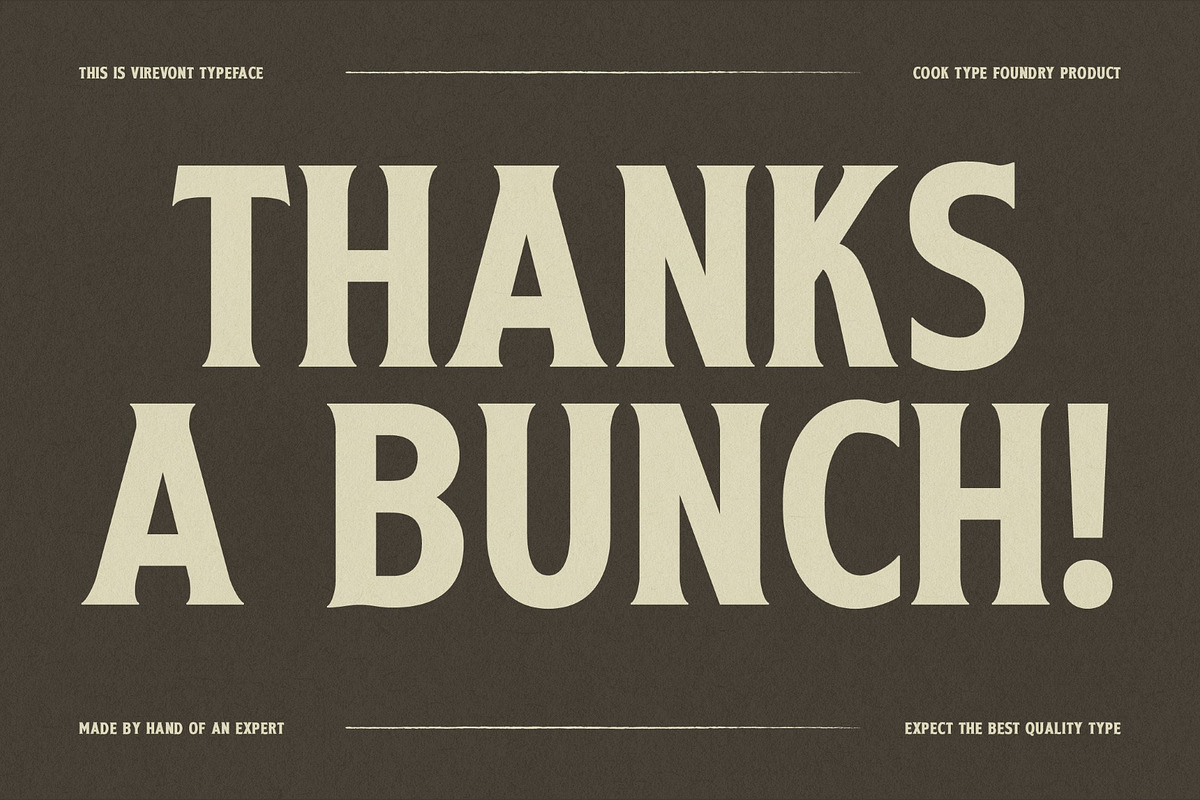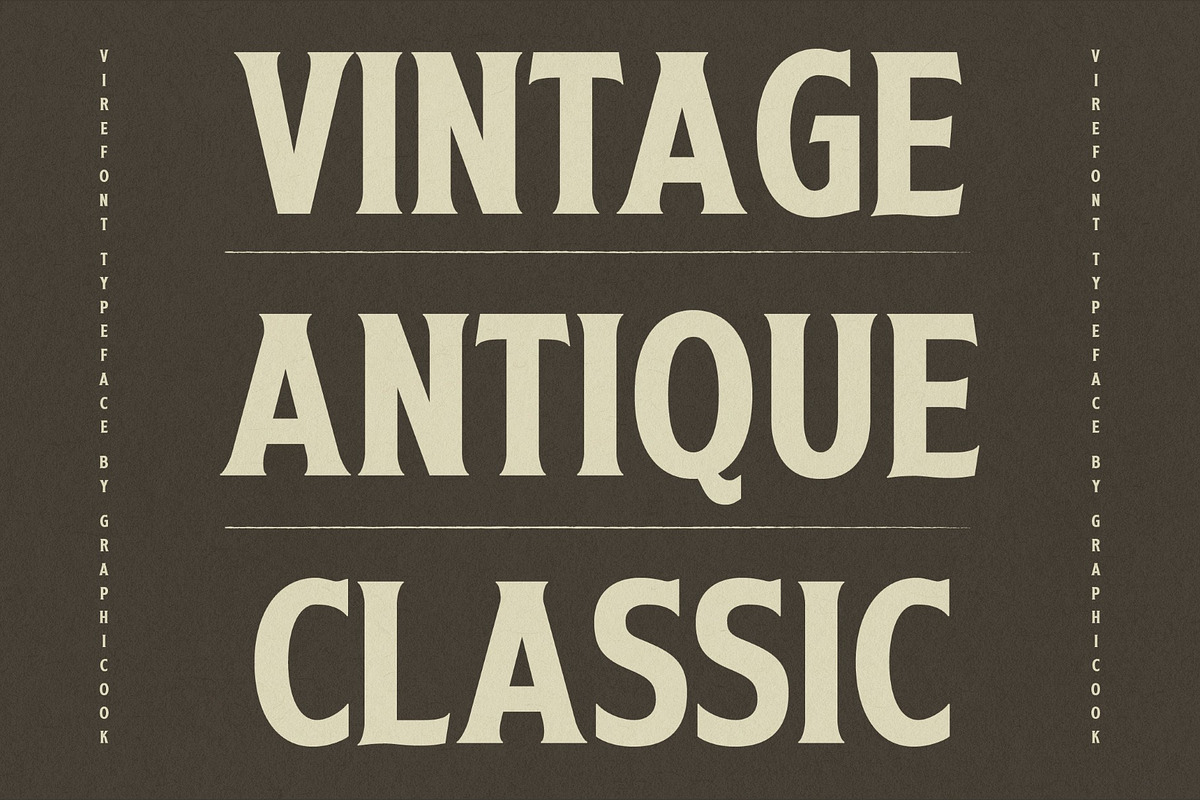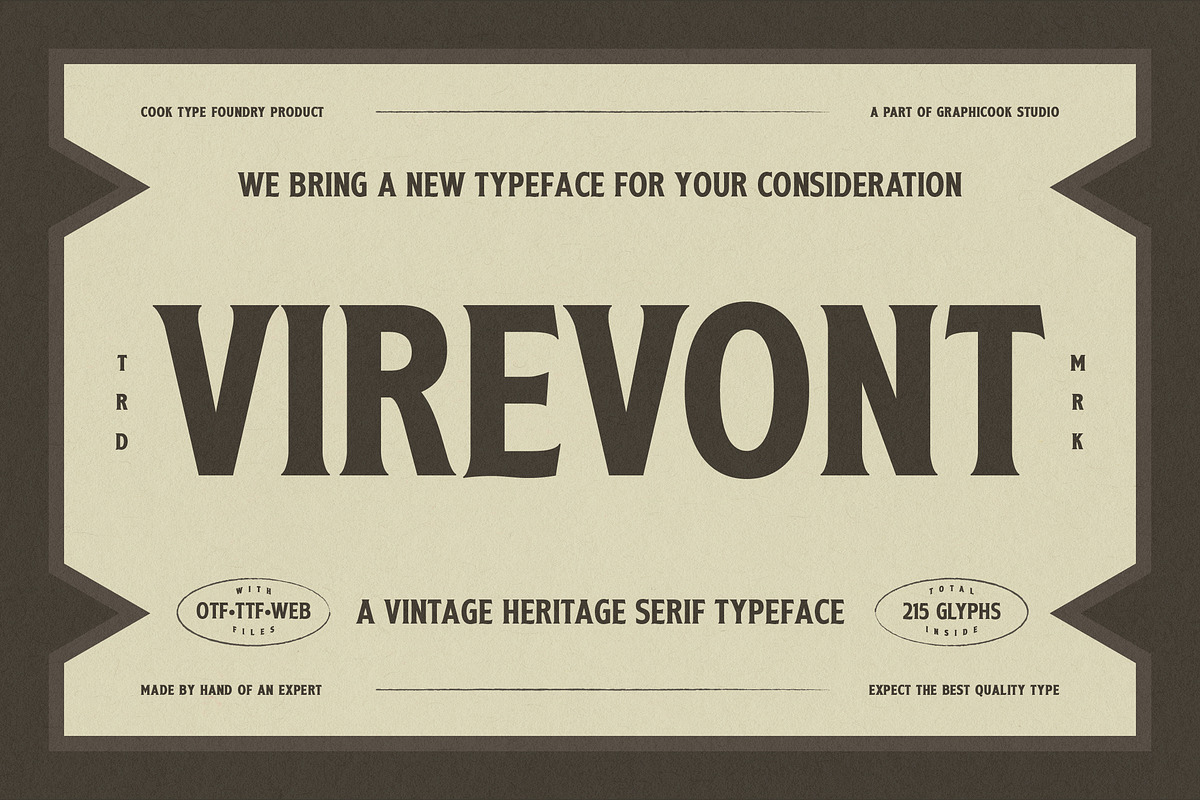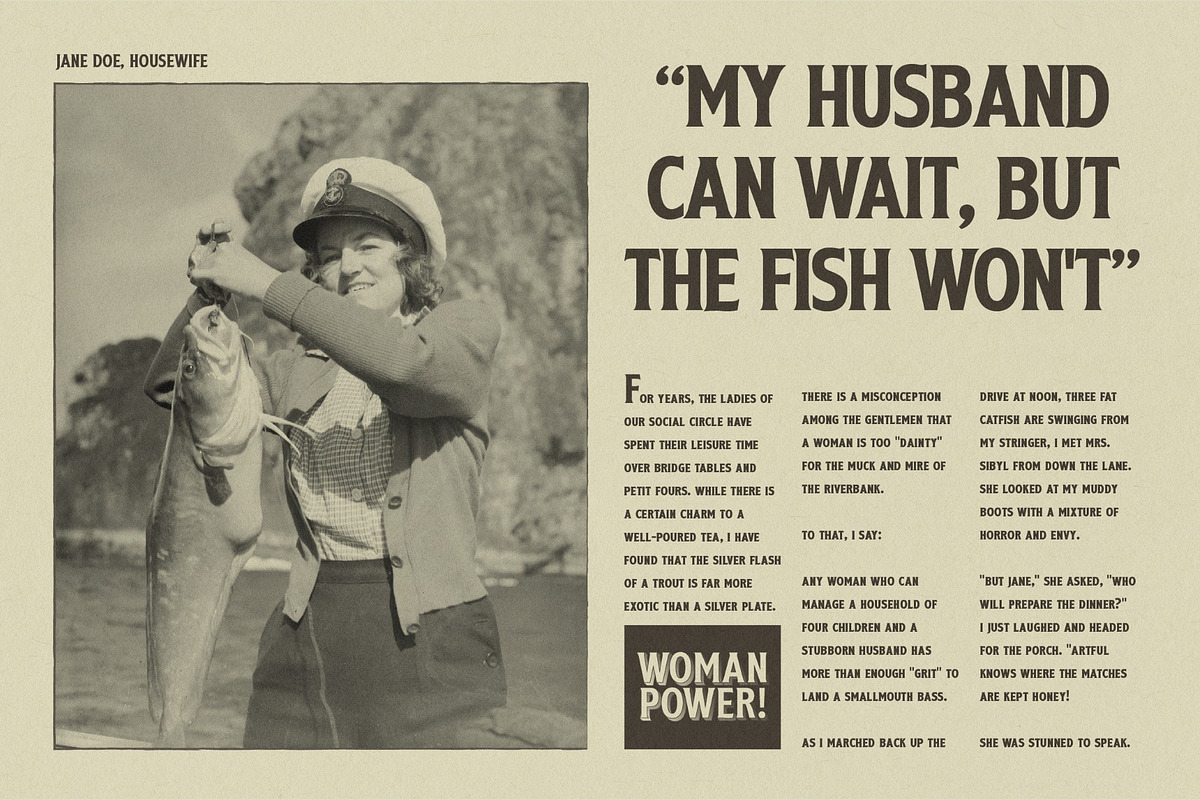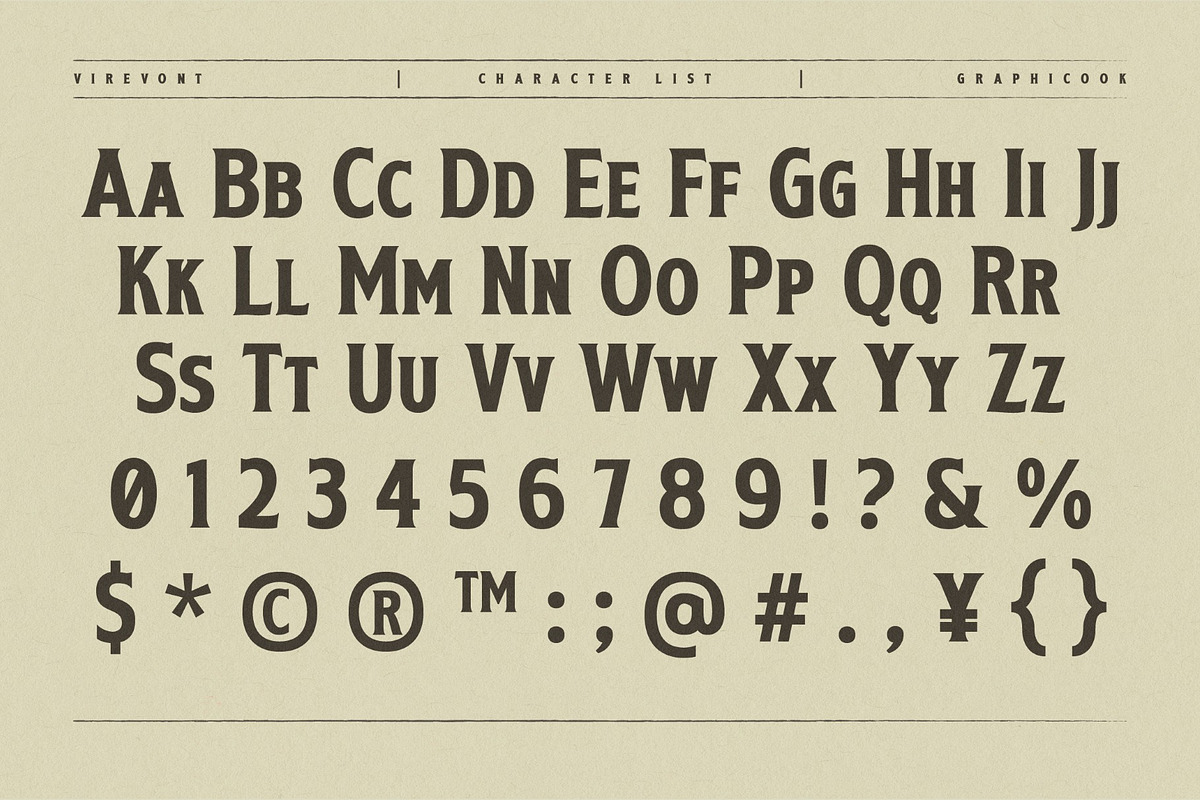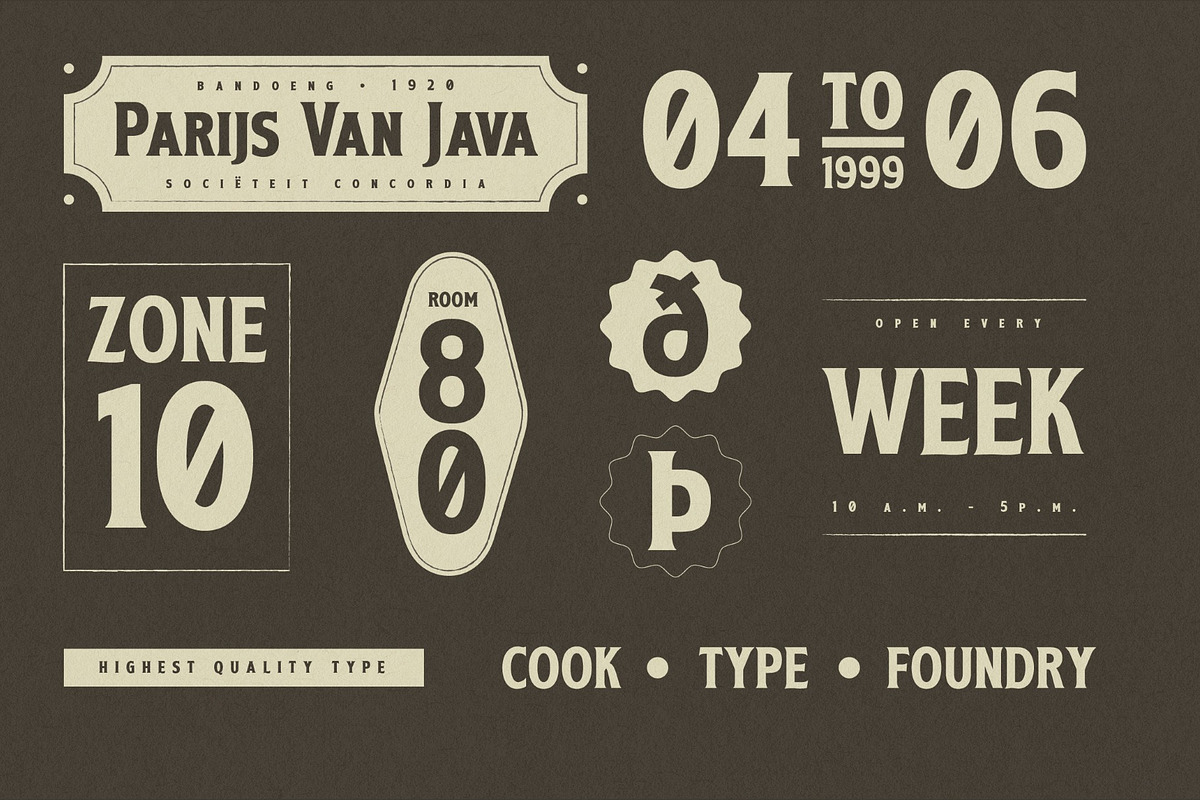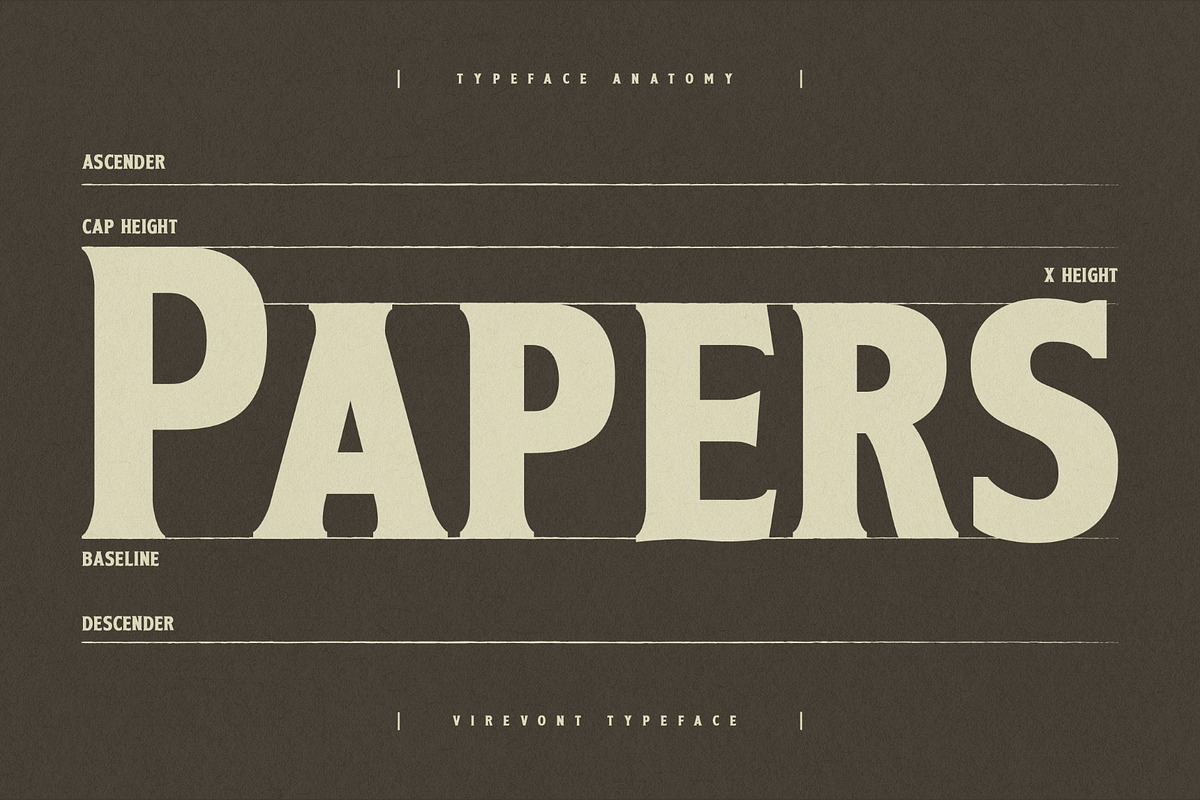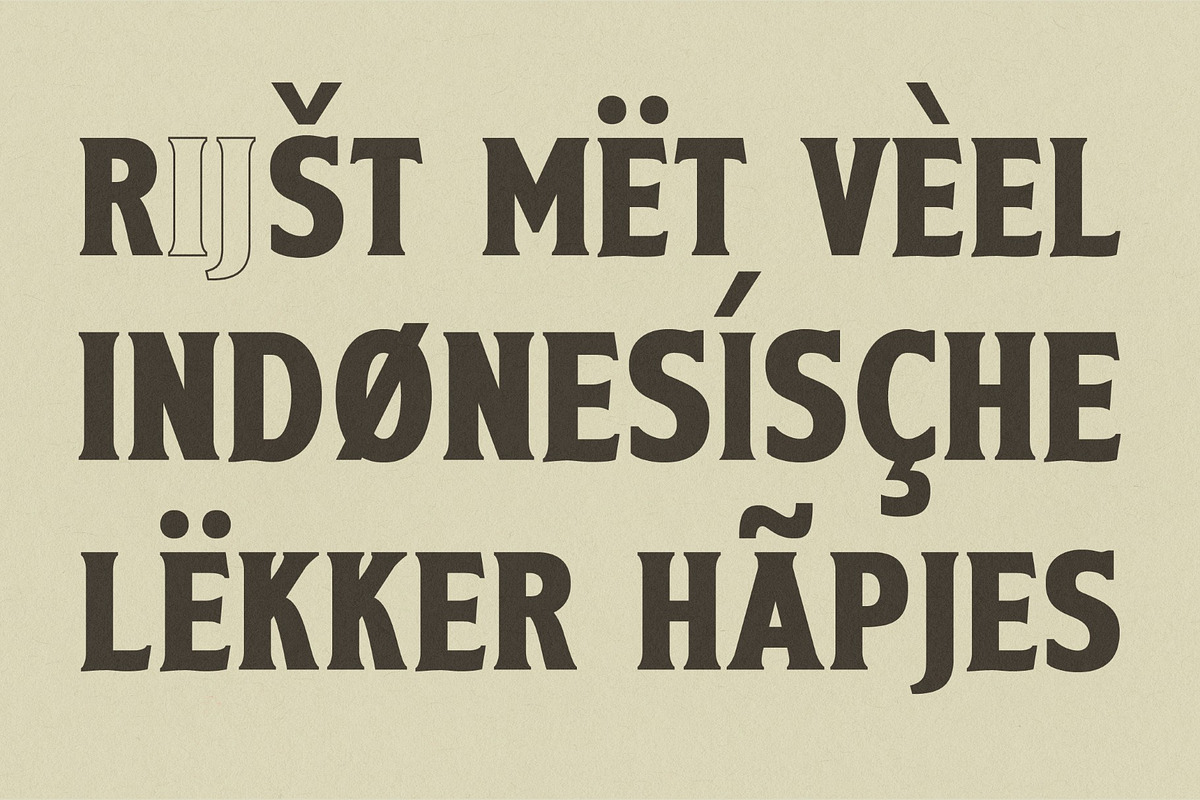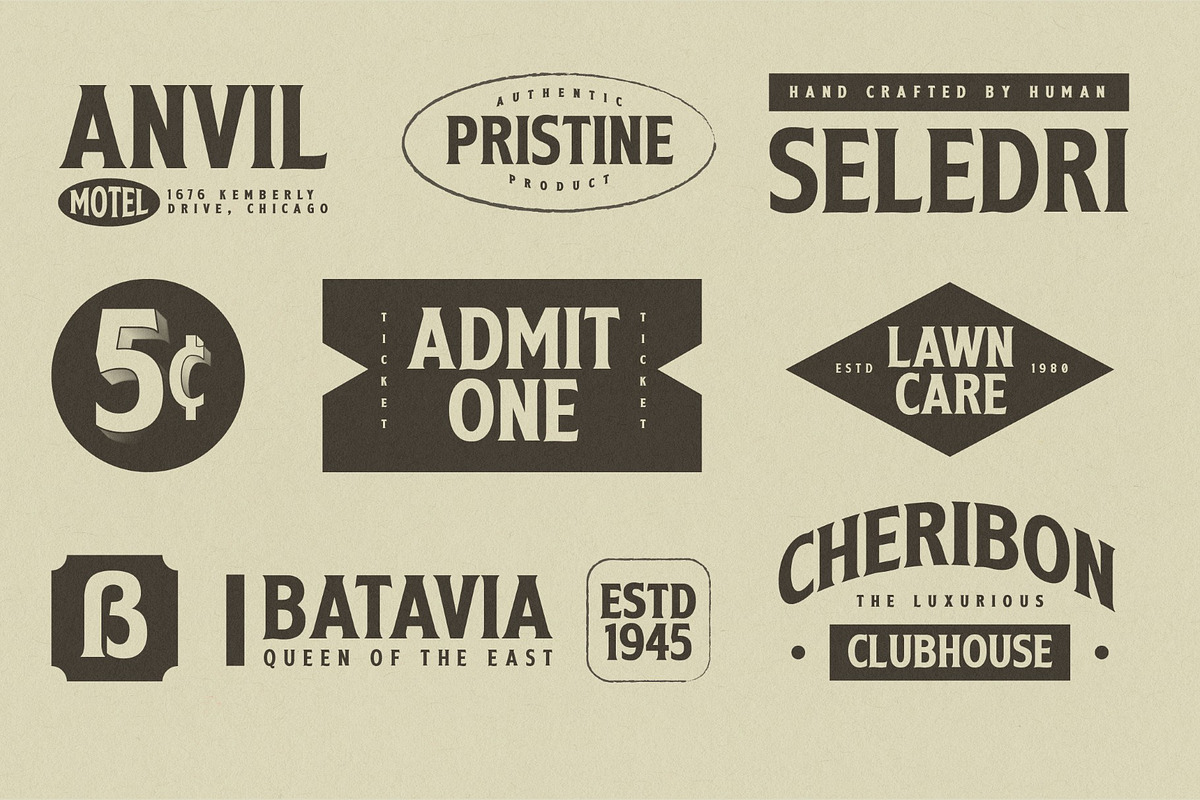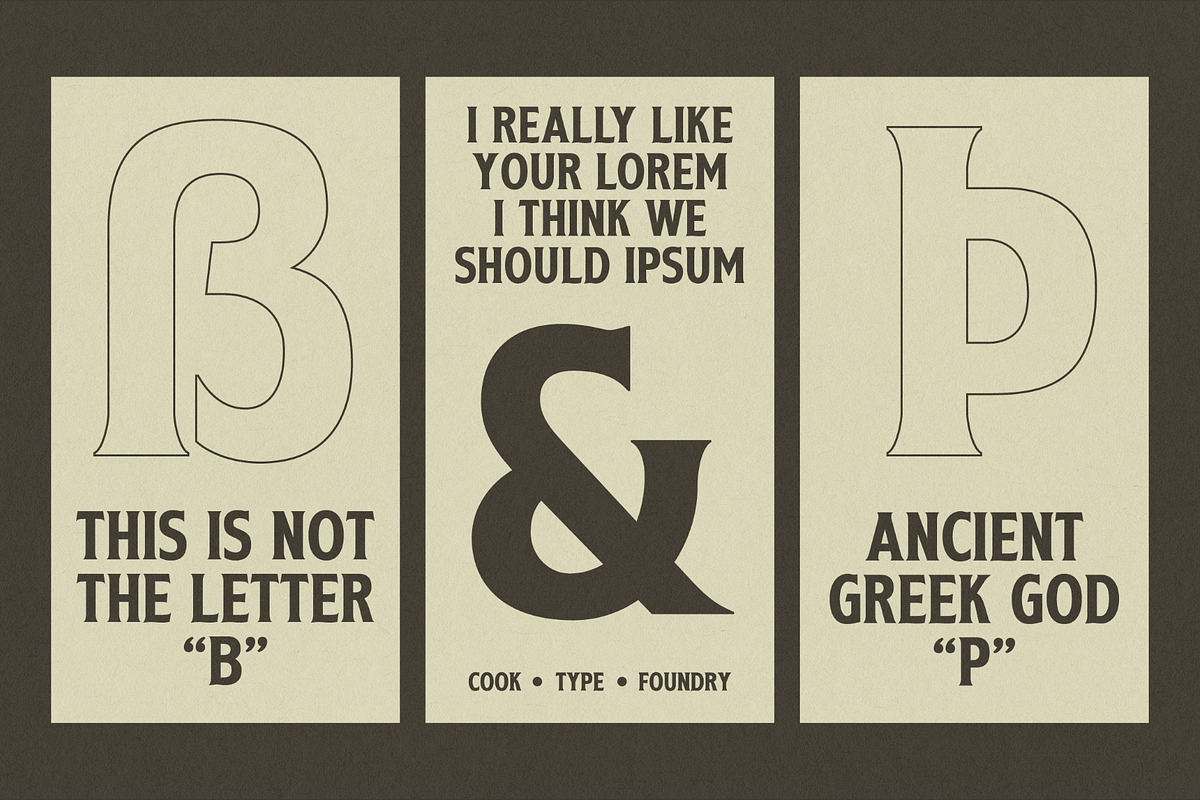
Virevont
Virevont is a vintage-inspired serif font influenced by classic typography, old-world signage, and timeless heritage aesthetics. Featuring bold letterforms, balanced proportions, and distinctive serif details, it blends classic elegance with a premium character. Its refined yet commanding presence makes Virevont ideal for creating memorable branding, editorials, packaging, logos, and sophisticated visual identities.
It is perfect for headlines, logotypes, magazines, packaging, quotes, movies, games, cover albums, book covers, and flyers, it's a perfect solution for creating eye-catching designs that stand out in any context.